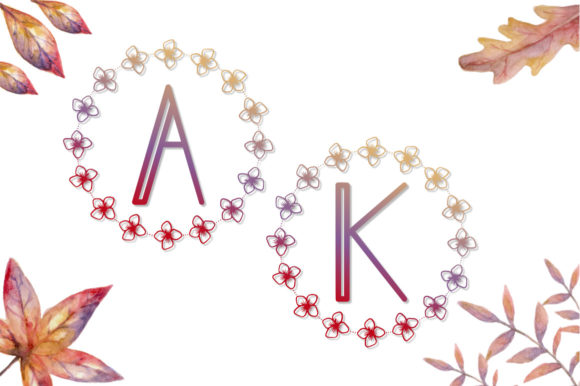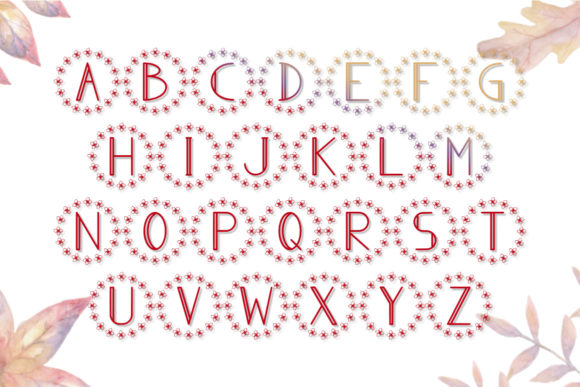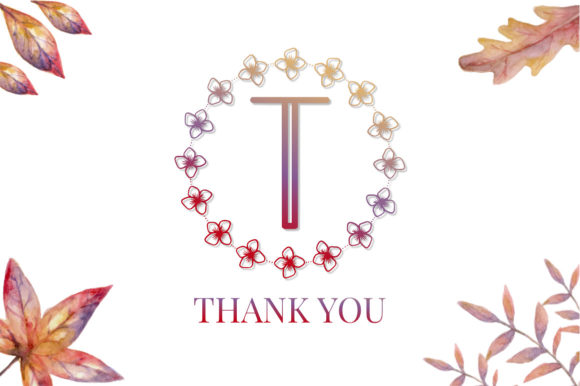
Fall in Love with Fall Monogram Font: The Perfect Addition to Your Design Collection
As the seasons change and the leaves start to turn, designers and crafters are on the lookout for fonts that evoke the cozy, warm feelings of autumn. If you’re searching for a font that captures the essence of the season, look no further than the Fall Monogram Font. This charming decorative font is sure to become a staple in your design collection, and we’re excited to share its features and uses with you.
What is Fall Monogram Font?
Fall Monogram Font is a beautifully designed decorative font that exudes an authentic, vintage feel. Its unique charm makes it perfect for a wide range of design projects, from invitations and stationery to social media posts and greeting cards. With its intricate details and classic style, this font is sure to add a touch of elegance and sophistication to any design.
Key Features of Fall Monogram Font
• Authentic feel: Fall Monogram Font has a genuine, old-world charm that will transport your designs back in time.
• Decorative style: This font features intricate details and ornate flourishes, making it perfect for designs that require a touch of elegance.
• Multipurpose: Use Fall Monogram Font to create a wide range of designs, from invitations and stationery to social media posts and greeting cards.
Uses for Fall Monogram Font
Fall Monogram Font is incredibly versatile, and its uses are endless. Here are a few ideas to get you started:
Invitations and Stationery
Create beautiful, one-of-a-kind invitations and stationery with Fall Monogram Font. Its elegant style makes it perfect for:
• Wedding invitations
• Birthday party invitations
• Holiday cards
• Personalized stationery
Social Media Posts
Add a touch of autumn charm to your social media posts with Fall Monogram Font. Use it to create eye-catching:
• Facebook posts
• Instagram captions
• Twitter headers
• Pinterest graphics
Greeting Cards
Fall Monogram Font is also perfect for creating cute and personalized greeting cards for:
• Birthdays
• Thanksgiving
• Christmas
• Halloween
Tips for Using Fall Monogram Font
To get the most out of Fall Monogram Font, here are a few tips to keep in mind:
• Experiment with colors: Fall Monogram Font looks great in a range of autumn-inspired colors, from warm reds and oranges to rich browns and yellows.
• Mix and match: Combine Fall Monogram Font with other fonts and graphics to create unique and eye-catching designs.
• Pay attention to spacing: Make sure to adjust the spacing between letters and words to ensure that your design looks balanced and visually appealing.
Font Name Fall Monogram Font
Author Letterayu
Fall Monogram Font is a charming decorative font that’s sure to become a favorite in your design collection. Its authentic feel, decorative style, and multipurpose uses make it perfect for a wide range of design projects. Whether you’re a designer, crafter, or social media enthusiast, Fall Monogram Font is a great addition to your toolkit. So why wait? Fall in love with Fall Monogram Font today and start creating gorgeous designs that capture the essence of the season!